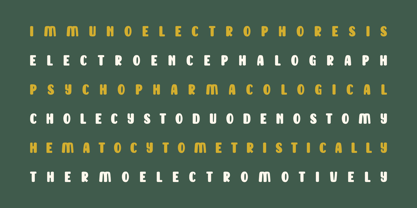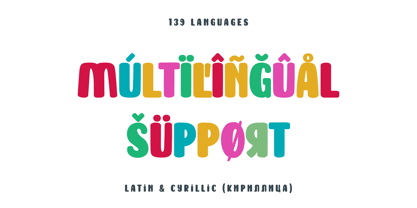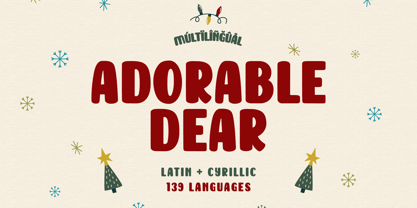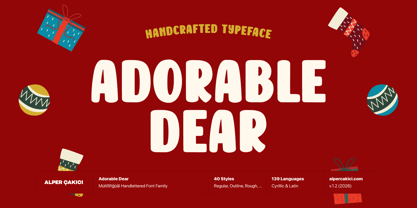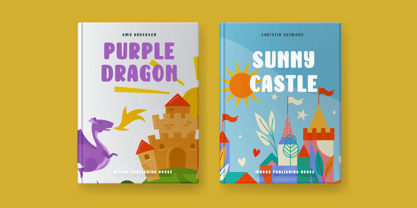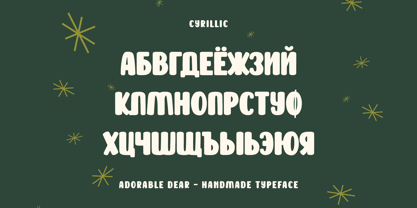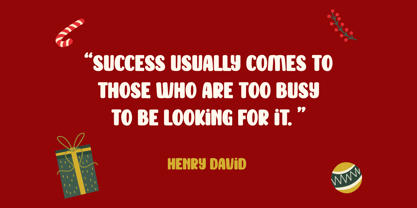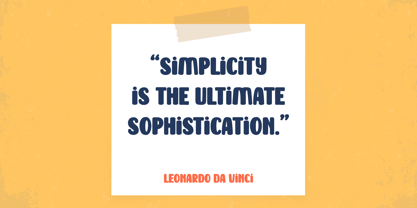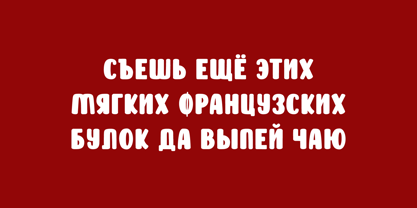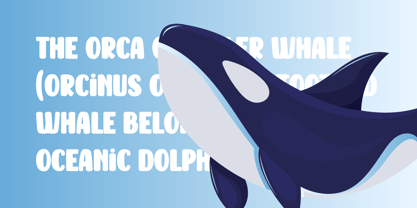
Adorable Dear
by AlperCakici
The Adorable Dear Font Family was designed by Alper Çakıcı and published by AlperCakici. Adorable Dear contains 40 styles and family package options. More about this family
Adorable Dear – Handwritten Kids Font Family (139 Languages) Adorable Dear is a playful, bold handwritten font family designed to feel soft, friendly, and full of joy. With its charming letterforms and cozy personality, this font is perfect for kids’ designs, educational materials, playful branding, storybooks, posters, stickers, packaging, and anything that needs a warm, happy touch. Adorable Dear comes with multiple textures and finishes, from clean and smooth to rough, chalky, waxy, pencil-like, and eroded. Angular and Brush styles add extra personality, while Outline versions bring instant fun and creativity to headlines and titles. Every style is carefully crafted to stay legible while keeping that lovable, handmade feel. With extensive multilingual support (including over 130 languages), Adorable Dear works beautifully for global projects.
Designers: Alper Çakıcı
Foundry: AlperCakici